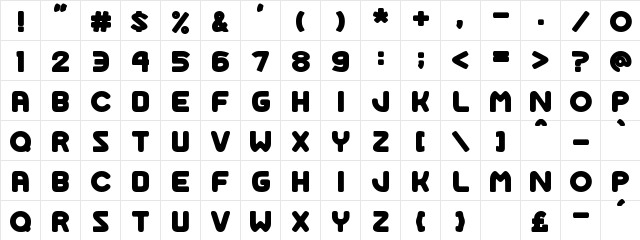
Space Adventure Normal
| Designer | Joseph Dawson |
Design Context for Space Adventure Typeface
Space Adventure is a composed and adaptable typeface that performs quietly and consistently across a wide range of design contexts.